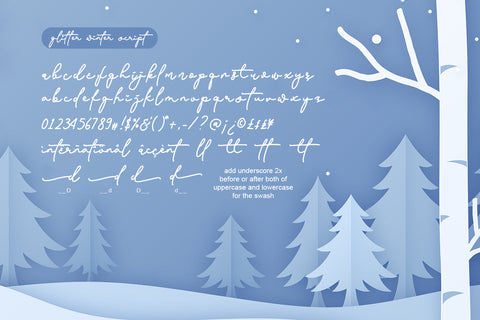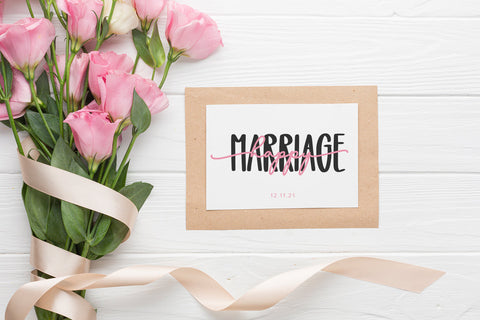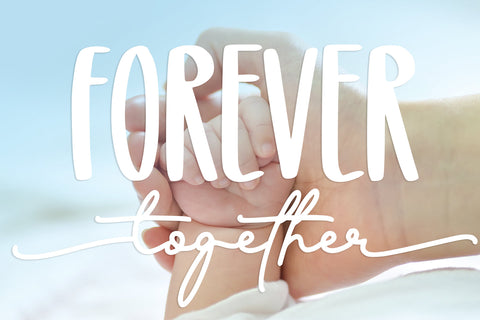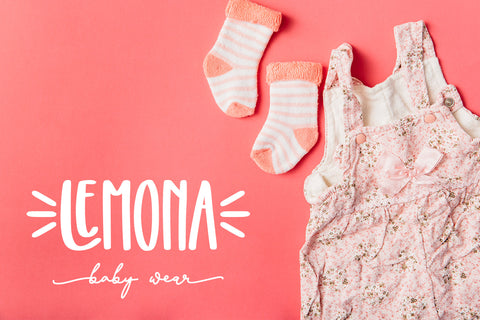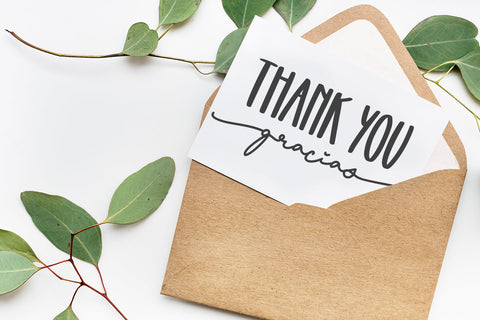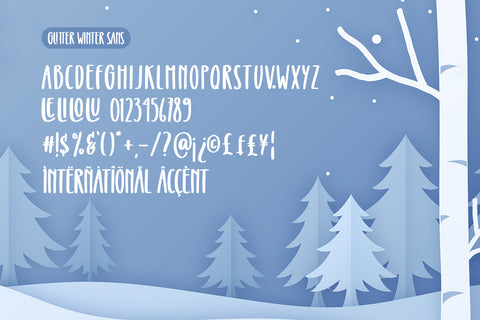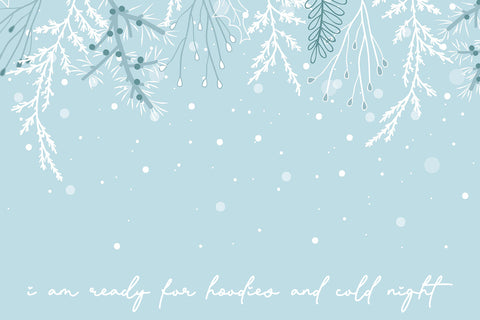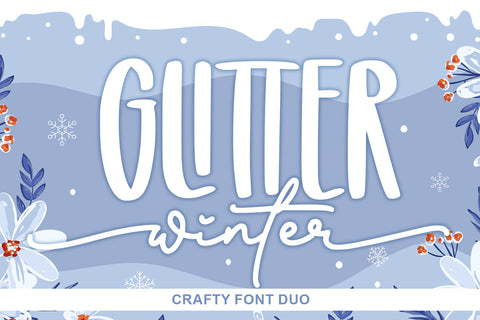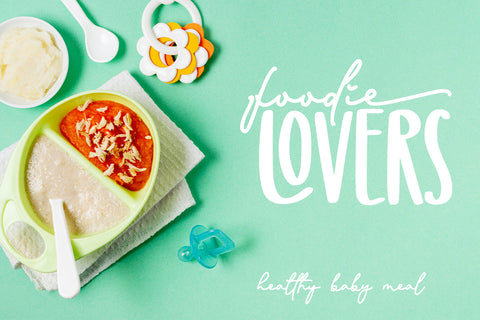
Glitter Winter - Duo
introducing
GLITTER WINTER
- crafty font duo -
GLITTER WINTER is fabulous couple font. It is great for lettering, quotes, wedding card, logo, t-shirt designs, mugs, interior ornament, tote bag designs, cards, banners, social media, and anything about craft projects.
It came in 2 styles. Sans and Script.
- Numeral
- Multilingual
- Swash